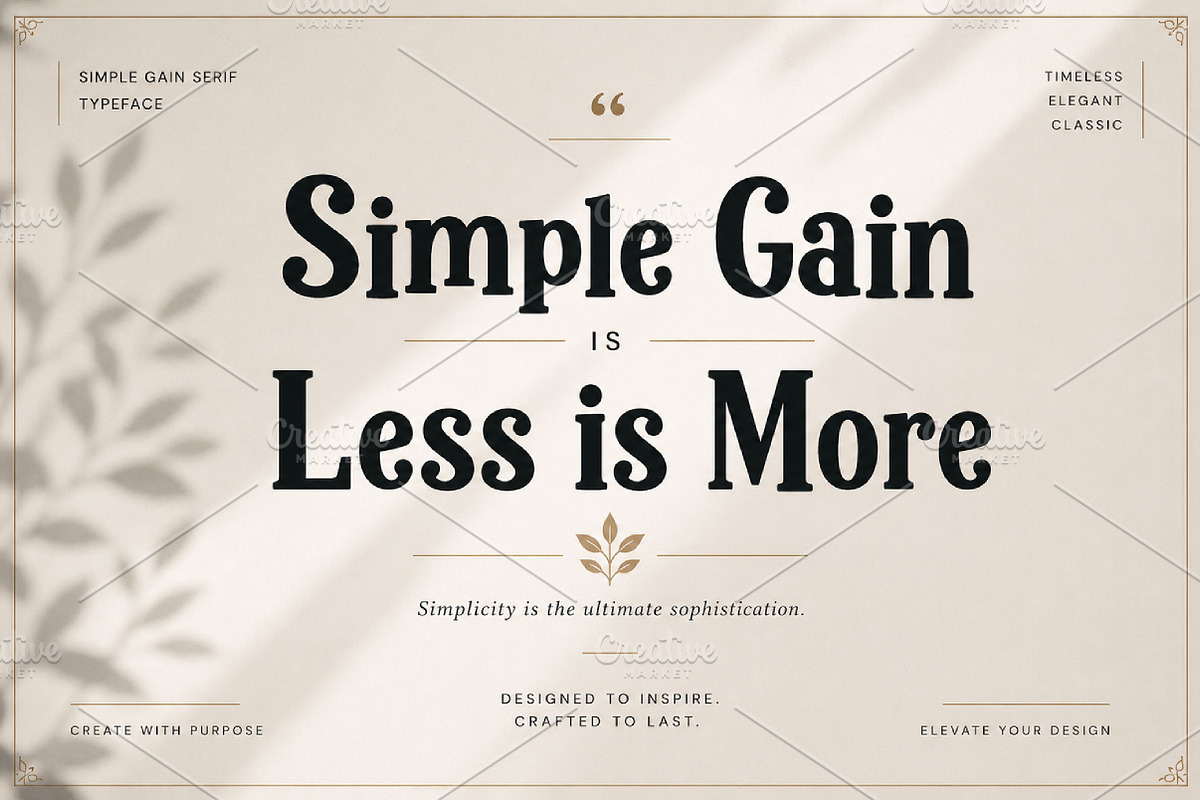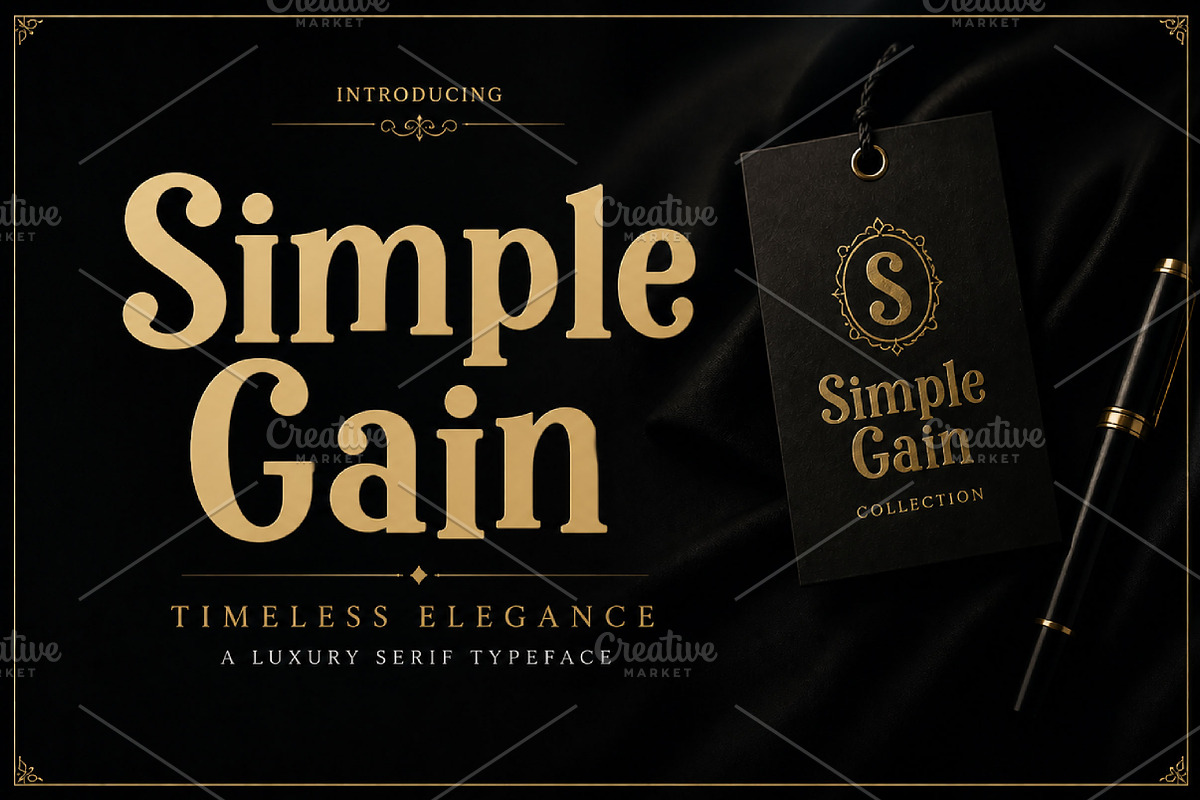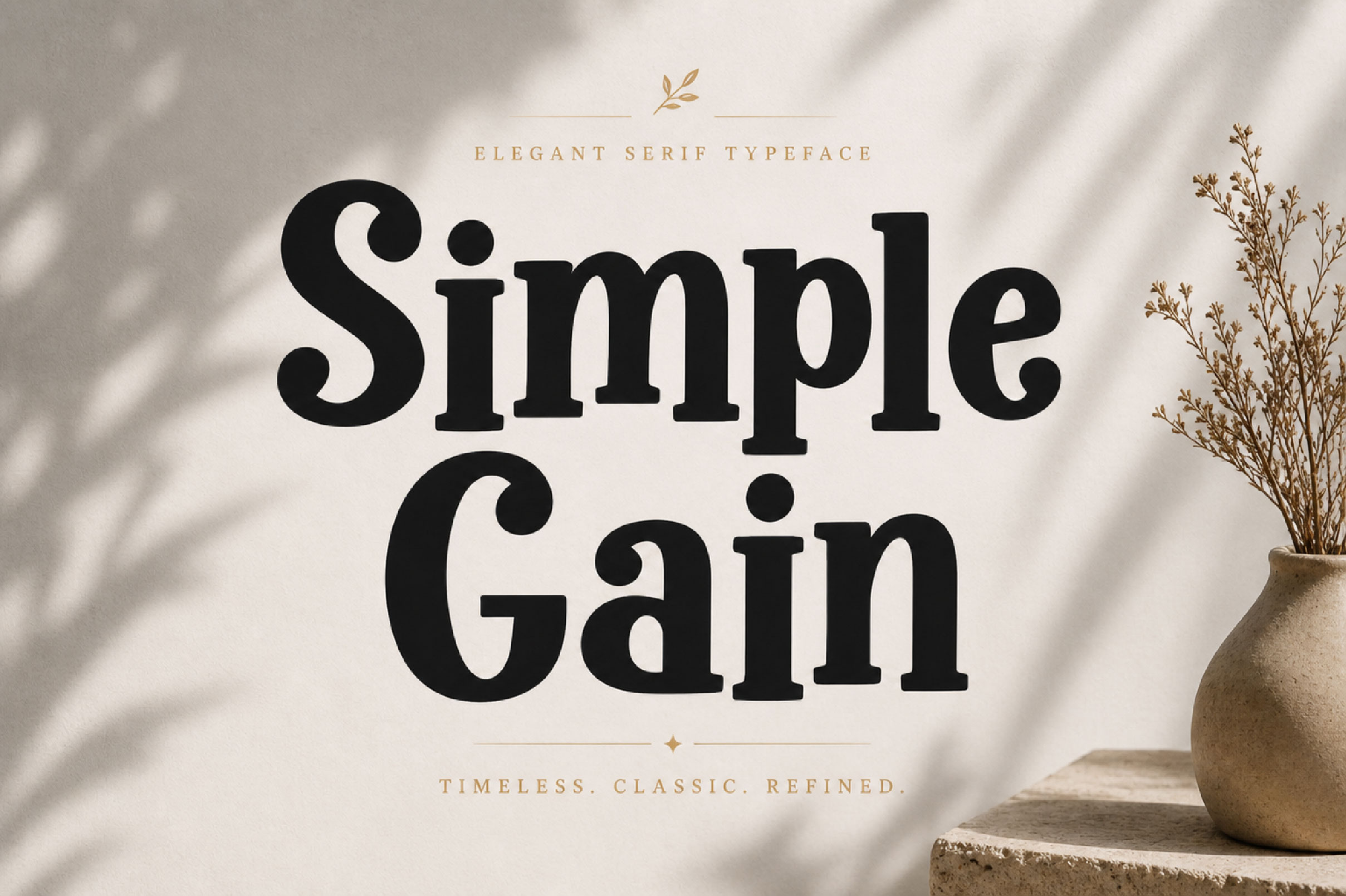
Simple Gain Vintage Display Font
Simple Gain – Bold Vintage Display Font
Simple Gain is a bold vintage display font with strong serif shapes and a classic playful feel, perfect for logos, posters, packaging, headlines, branding, and retro-inspired designs.
Simple Gain is a bold display font designed to bring classic charm, confidence, and personality to your creative projects. With its thick letterforms, decorative serif details, and slightly playful character, this font creates a strong vintage-inspired look that feels memorable, stylish, and full of impact.
Its bold serif display style makes Simple Gain perfect for projects that need a retro, classic, or eye-catching typography style. Use it for logo design, branding, posters, product packaging, labels, social media graphics, merchandise, website headers, advertising, and creative headline designs.
Bold display style
Strong serif character
Vintage-inspired look
Playful classic feel
Perfect for headline use